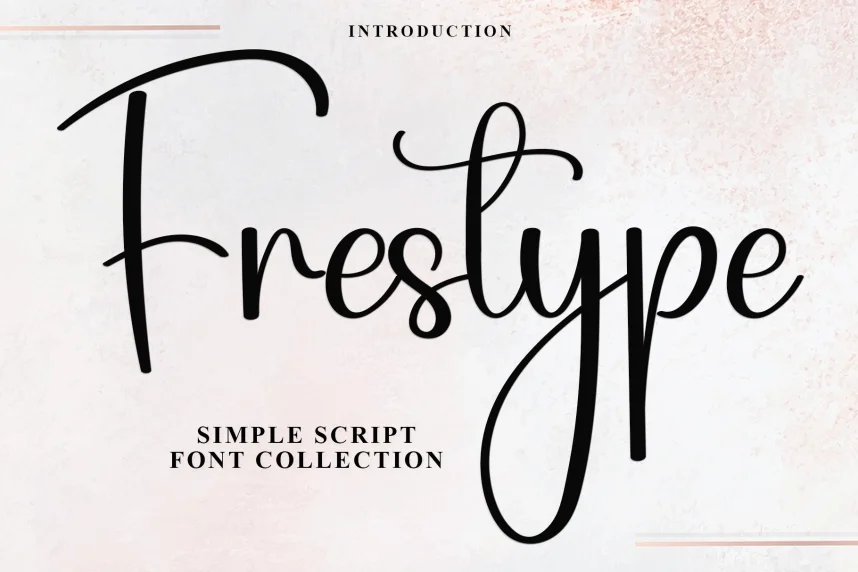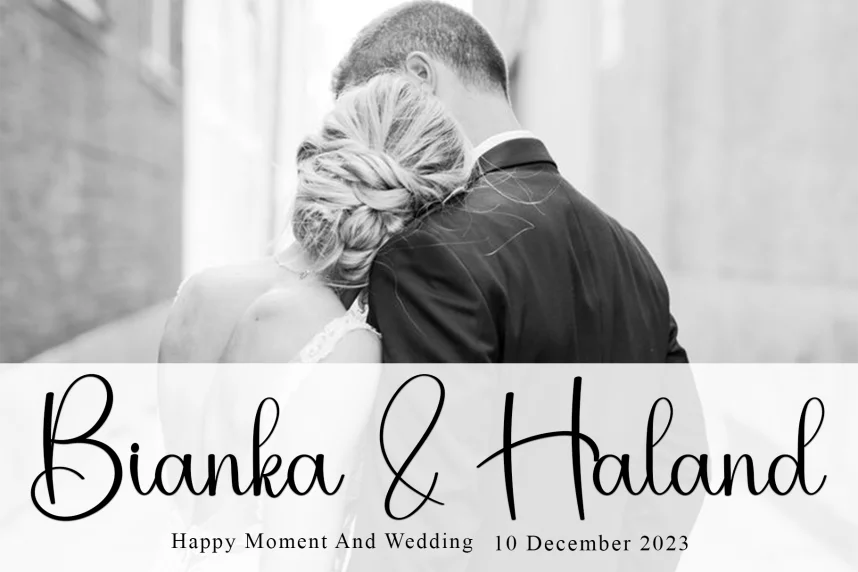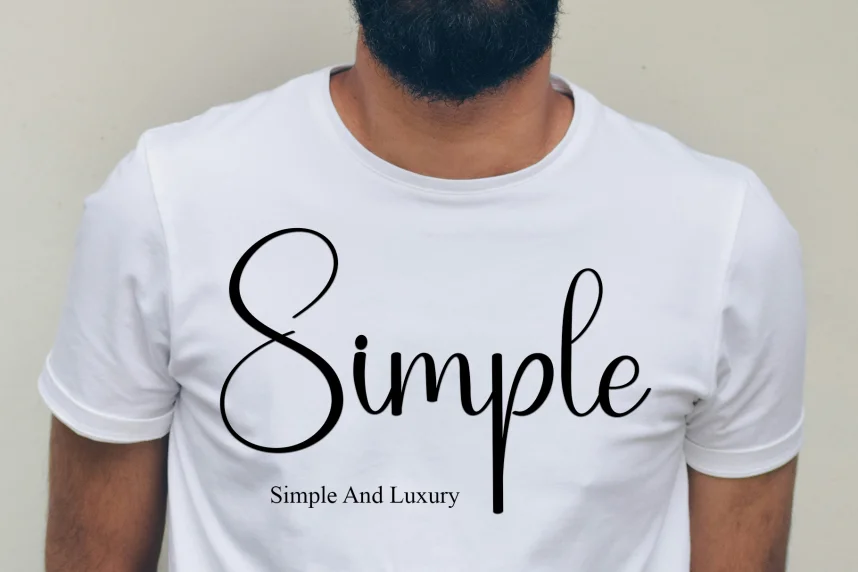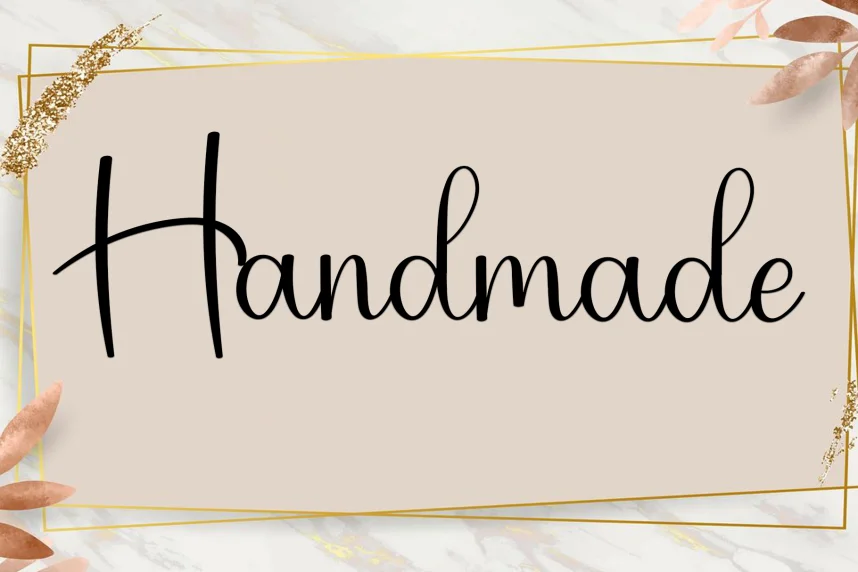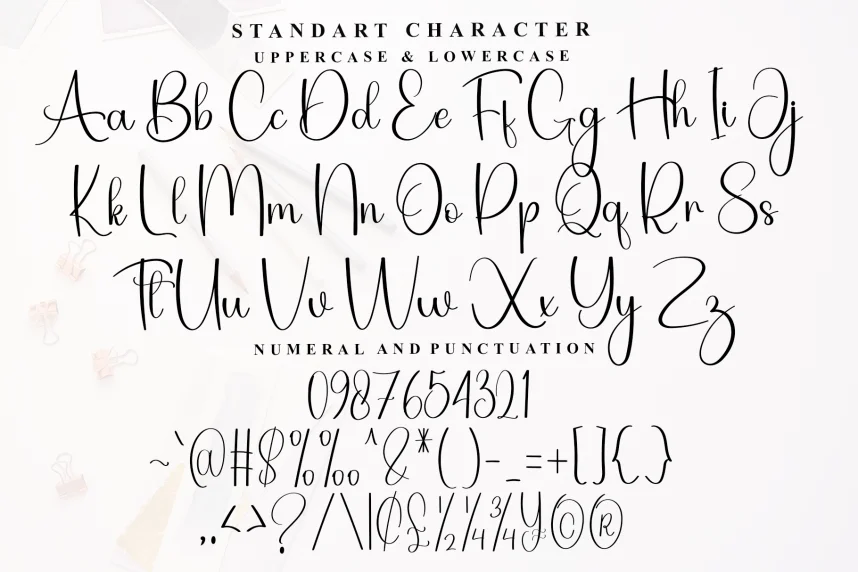
Frestype Simple Script Font addresses the need for an elegant, clean script that adds personality without being overly decorative. It’s ideal for projects that require a personal touch while ensuring clarity.
Frestype Simple is a script font with smooth, fluid strokes and uniform spacing. The letterforms are legible yet elegant, with a balance of thick and thin lines that enhance readability in both large and small sizes.